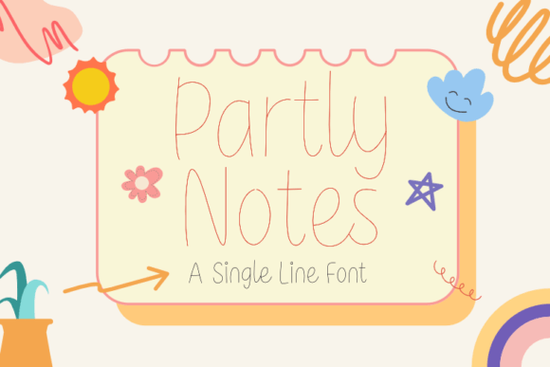
If you're looking for a clean, modern script font that works well for logos, branding, or hand-lettered-style designs and especially if you use CNC machines or cutting software Partly Notes Font is worth your attention. It’s designed with single, continuous lines for each character, making it ideal for engraving, vinyl cutting, or embroidery digitizing where line continuity matters. Unlike many script fonts that rely on thick-and-thin strokes or complex flourishes, Partly Notes keeps things minimal: gentle curves, soft loops, and balanced spacing give it quiet confidence without visual noise.
Who is Partly Notes Font best suited for?
This font fits naturally into several creative workflows:
- Small business owners building cohesive brand identities especially those leaning into minimalist, modern, or Scandinavian-inspired aesthetics.
- Crafters and makers using Cricut, Silhouette, or Glowforge who need reliable single-line fonts that cut cleanly without retracing or layering.
- Print-on-demand sellers creating greeting cards, wall art, or apparel with understated elegance think wedding invites, boutique packaging, or neutral-toned home decor.
- Designers who prefer lightweight, versatile scripts that pair easily with sans-serifs or geometric typefaces.
It’s not overly decorative, so it avoids feeling dated or niche. That makes it more flexible than trend-driven script fonts something you can use across multiple projects without worrying about style fatigue.
How does Partly Notes differ from other script fonts?
Most script fonts are built for display: they simulate brushwork, calligraphy, or ink flow with variable stroke widths, entry/exit swashes, and overlapping connections. Partly Notes Font takes a different path. Its letters are drawn as one unbroken line no start-and-stop points, no extra terminals. That’s why Version 2 was specifically optimized for CNC and vector-cutting applications. If you’ve ever struggled with fonts that convert poorly to paths or generate messy cut files, this one simplifies the process.
Compare it to Gloomy Unseen Font, which leans into moody, textured expression, or Hello Honey Font, known for its bouncy, playful energy. Partly Notes sits quietly in the middle neither dramatic nor cutesy. It shares some of the calm clarity you’ll find in Sign Rathi Font, but with even less visual weight and tighter spacing.
Where does it work well and where might it fall short?
It shines in contexts where simplicity supports meaning rather than competes with it:
- Monogrammed stationery or engraved jewelry tags
- Minimalist logo lockups (e.g., “Elena & Co.” or “The Oak Press”)
- Digital product headers for calming wellness brands or slow-living blogs
- Subtle text overlays on neutral photography for social media or Etsy banners
It’s less ideal for long-form body text (like website paragraphs or book interiors) since script fonts aren’t meant for extended reading. And if your project calls for strong personality say, a holiday-themed design or festive packaging you might prefer something with more warmth or seasonal charm, like Christmas Font or Splashed Font.
Practical tips for getting started
- You’ve tested letter spacing at your intended size minimalist scripts can look too loose or cramped depending on scale.
- You pair it thoughtfully: try it with a clean sans-serif like Inter or Poppins for contrast, or let it stand alone on light backgrounds for maximum impact.
One small but helpful detail: because each glyph flows as a single stroke, you’ll get smoother results when converting to outlines or paths. That means fewer anchor points to clean up manually and less time troubleshooting jagged edges or disconnected segments.
If you’re already working with script fonts like Hello Honey Font or Splashed Font, adding Partly Notes to your collection gives you a quieter, more restrained option useful when subtlety is the goal, not flair.
Next step: Try typing out your brand name or a short phrase in Partly Notes at 36pt and 72pt sizes. Print it or view it on screen. Does it feel legible? Calm? Confident? If yes and if your tools support single-line output you’ve likely found a dependable new go-to.